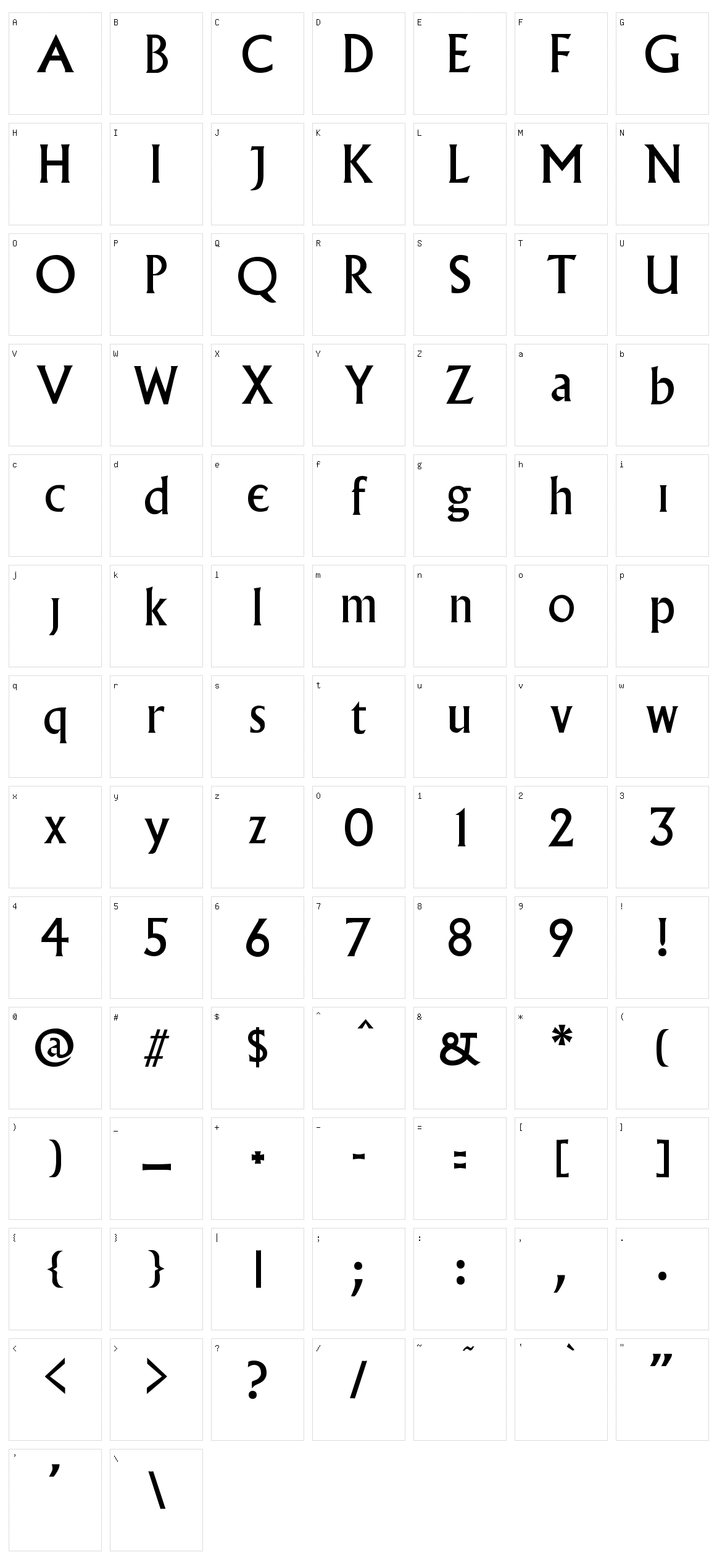
This font was designed to closely resemble that used in the cult TV classic "The Prisoner," created by and starring Patrick McGoohan. The letterforms are mostly based on the "Albertus" typeface, with a few exceptions:
* The lowercase "e" has been replaced by an open, epsilon-style "e"
* The dot has been removed from the lowercase "i" and "j"
This release of the font contains nearly a complete character set, excluding only a few symbols found in some fonts.
There is no relationship between this font and the shareware "Furioso," except that both are based on "Albertus."
There are several special characters beyond the standard set -- Character Map in Windows gives the following mappings:
* ALT+0174 is the original closed lowercase "e"
* ALT+0165 is the dotted lowercase "i"
* ALT+0167 is the dotted lowercase "j"
* ALT+0223 is the alternate capital "P" used in the main titles of the series
* ALT+0163 is the alternate capital "G" used in "McGoohan"
* ALT+0248 is the penny-farthing bicycle symbol used on Village buttons
* ALT+0216 is the penny-farthing bicycle symbol used on signs and labels in the Village